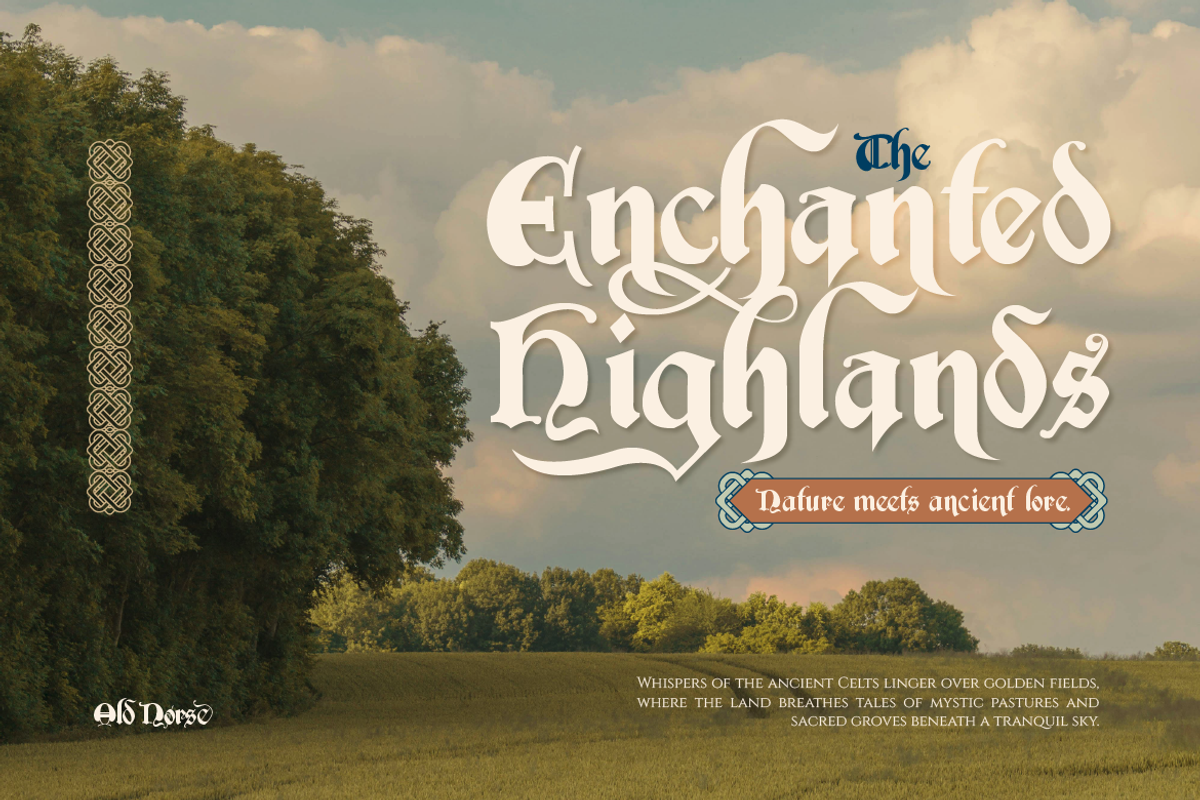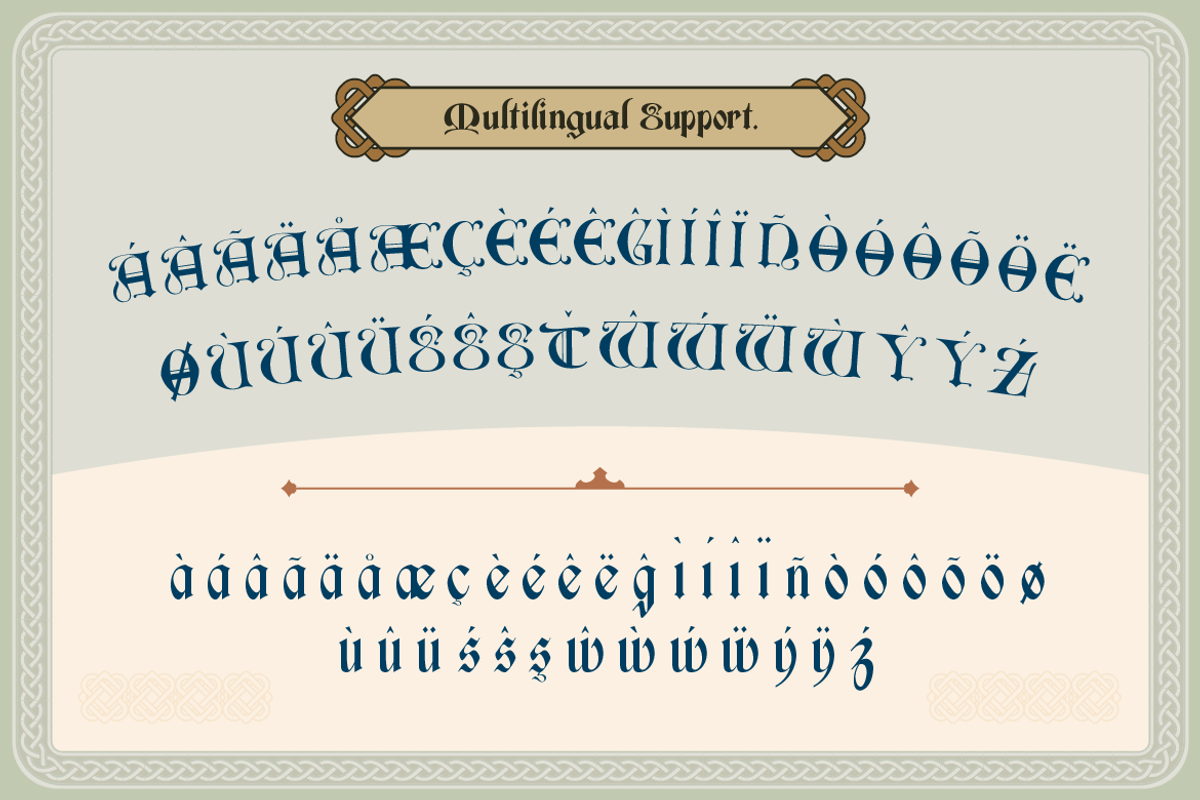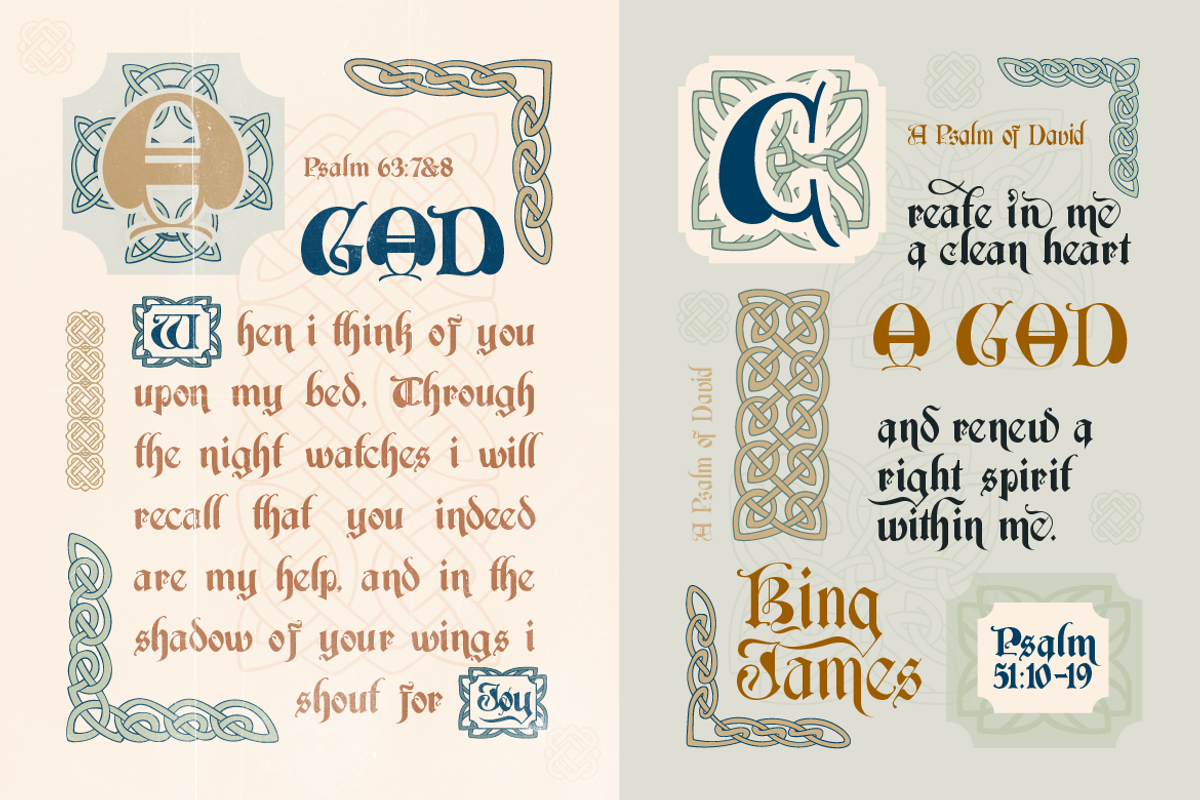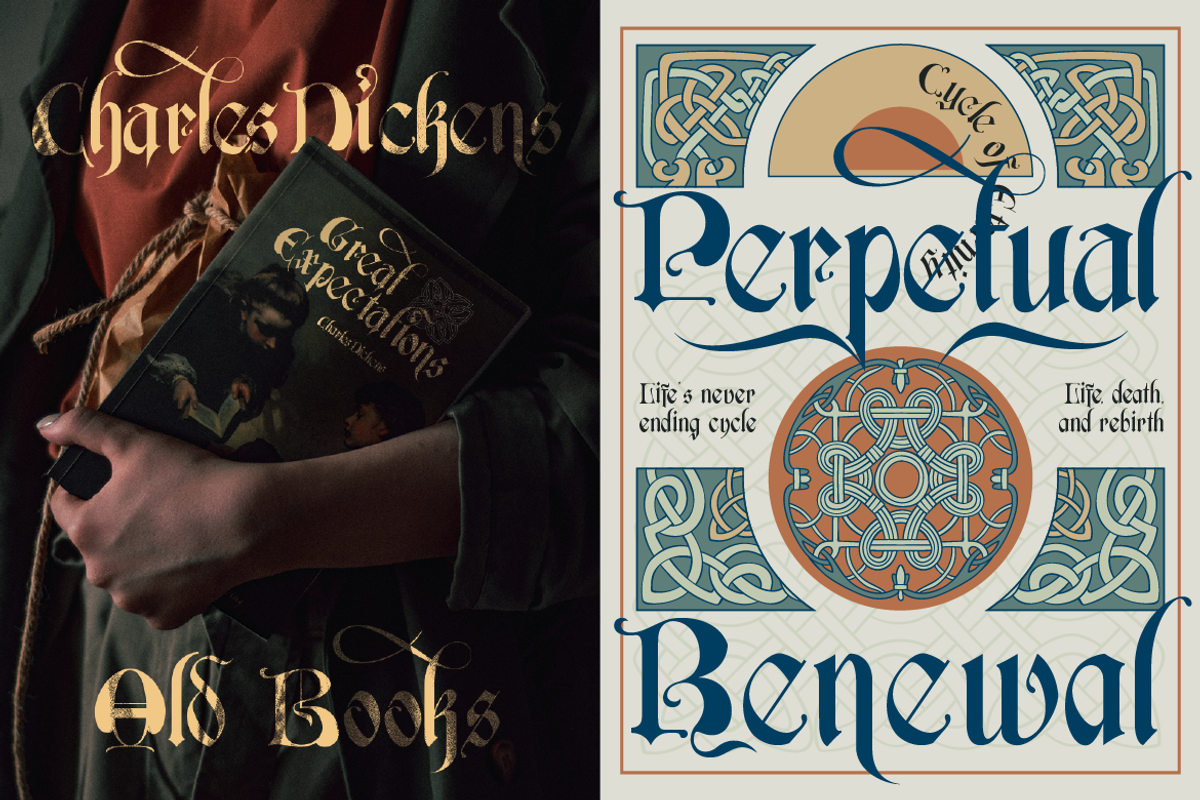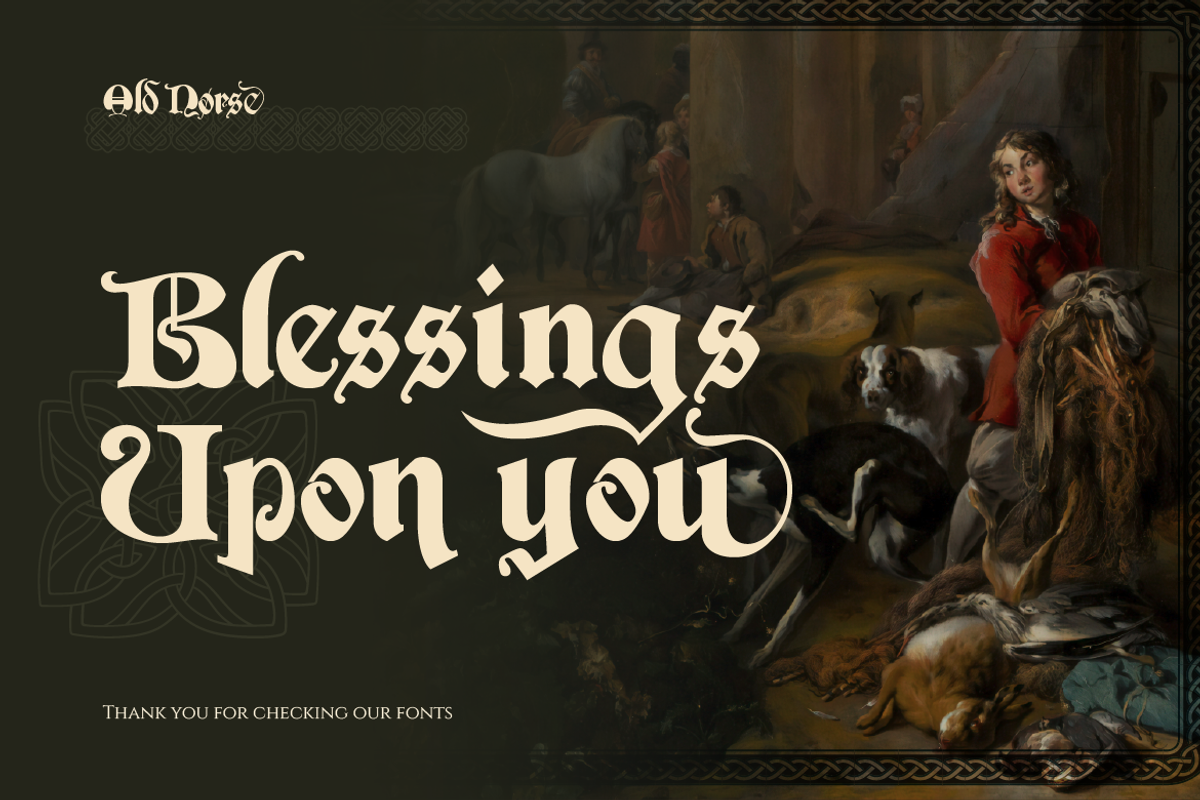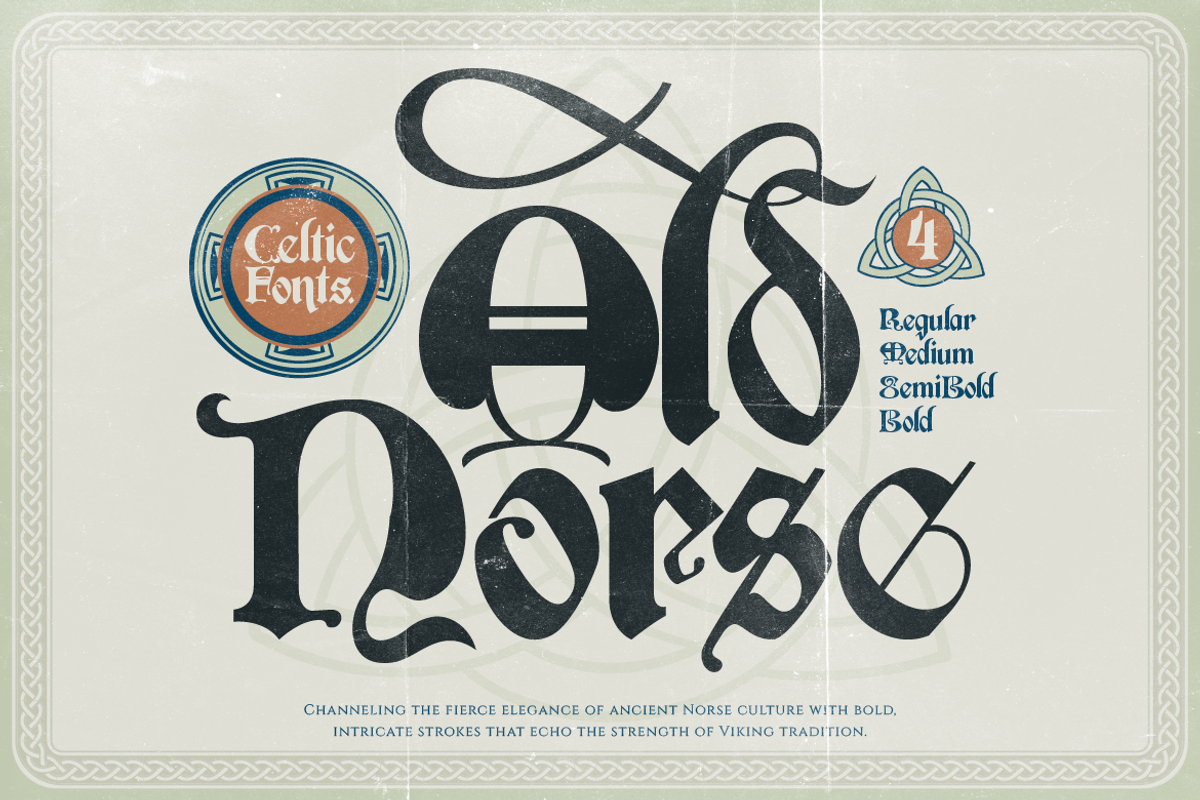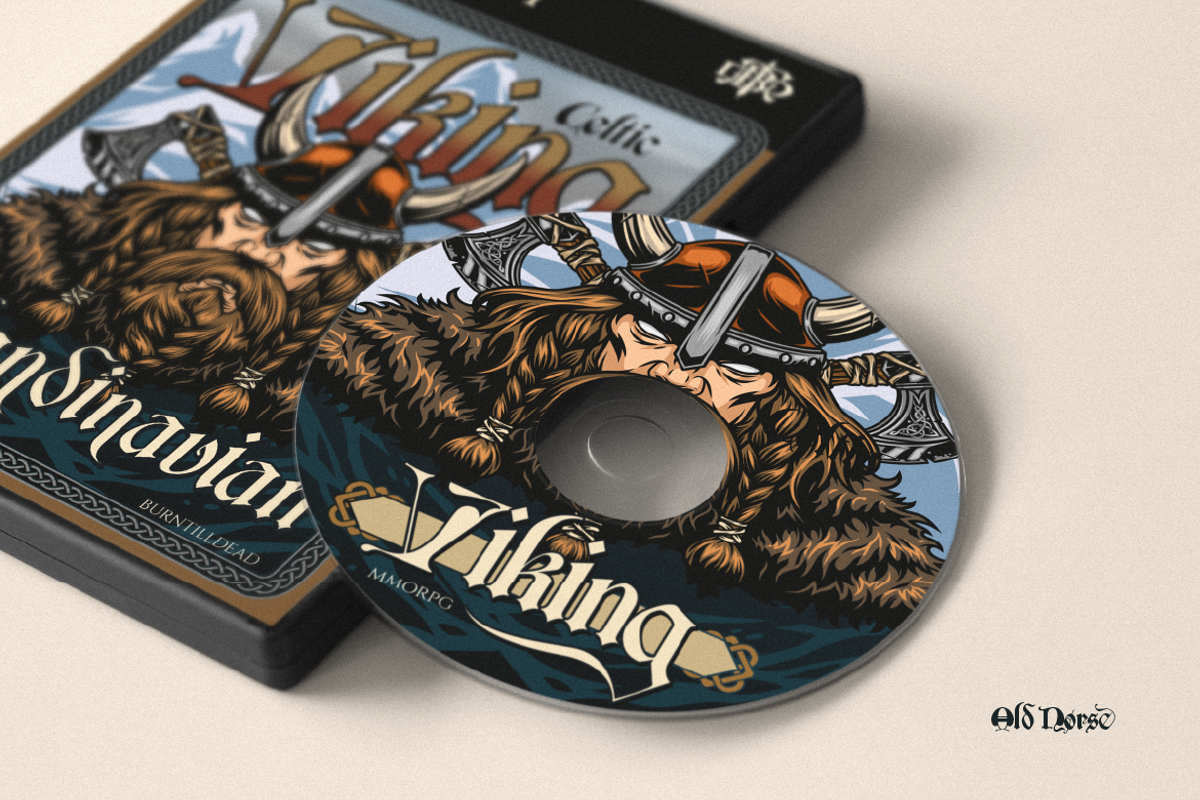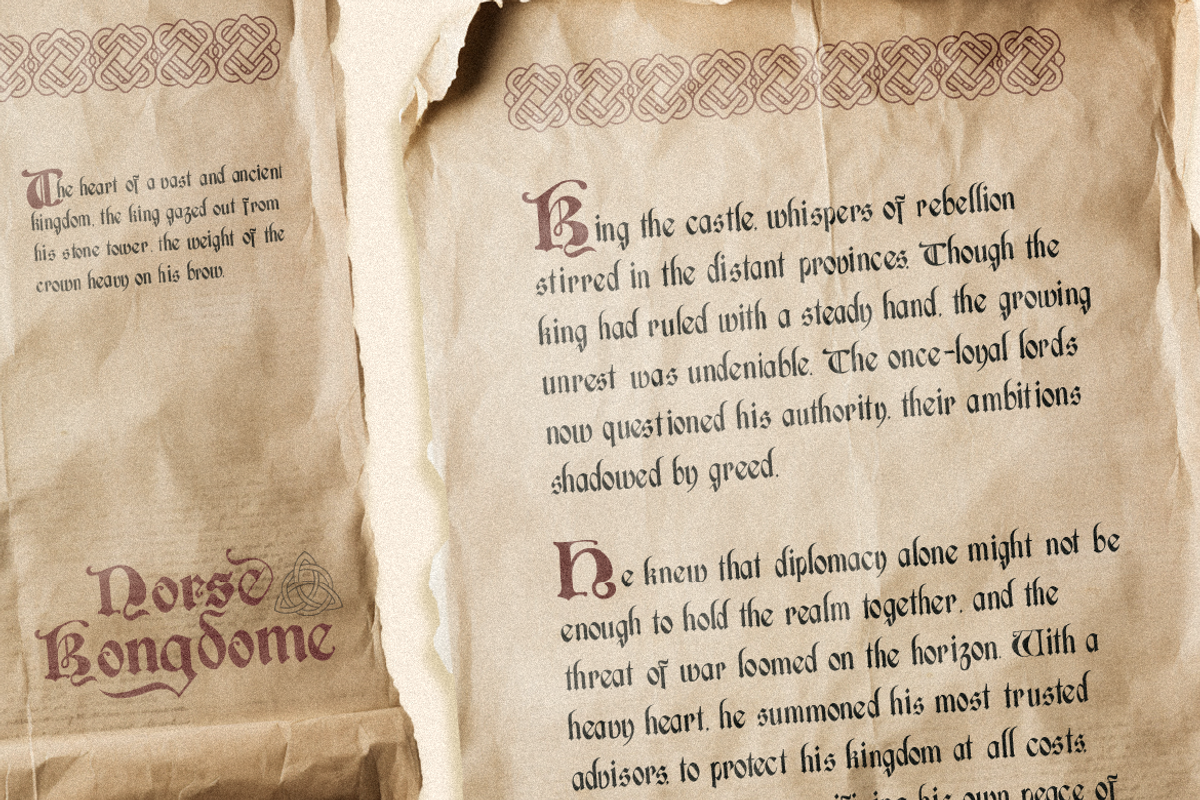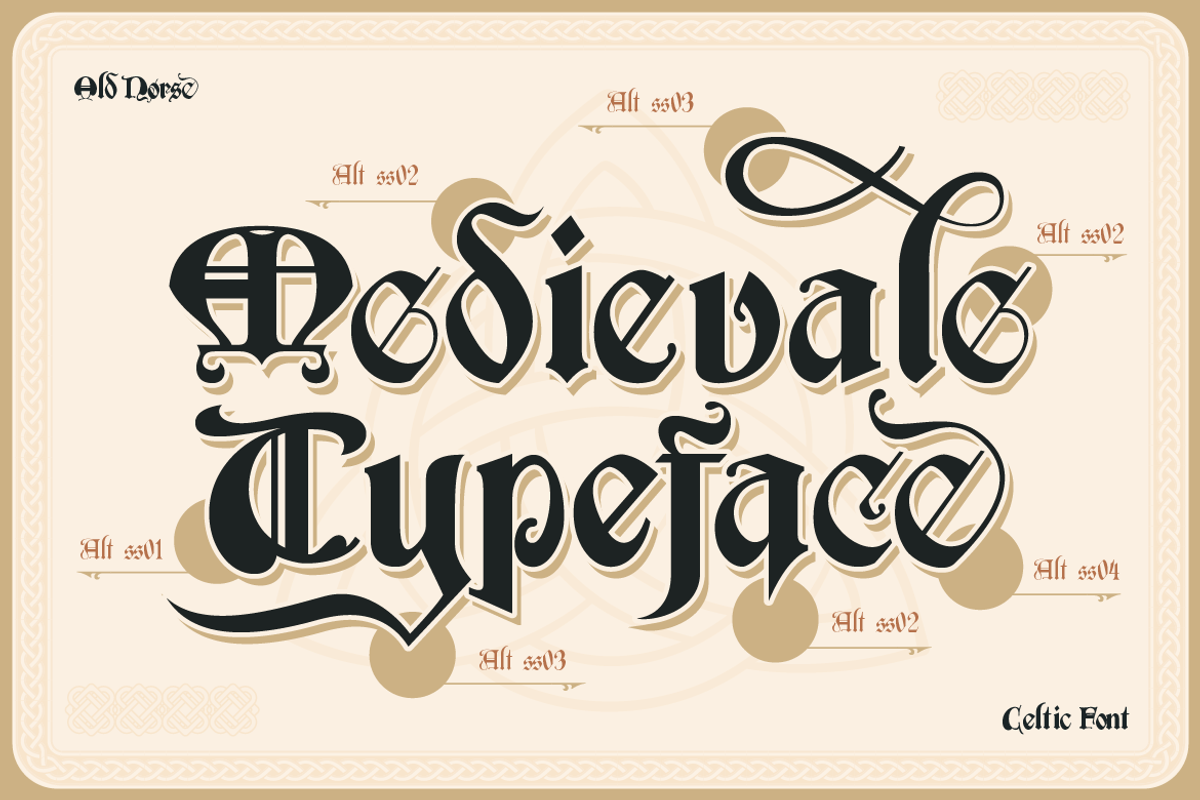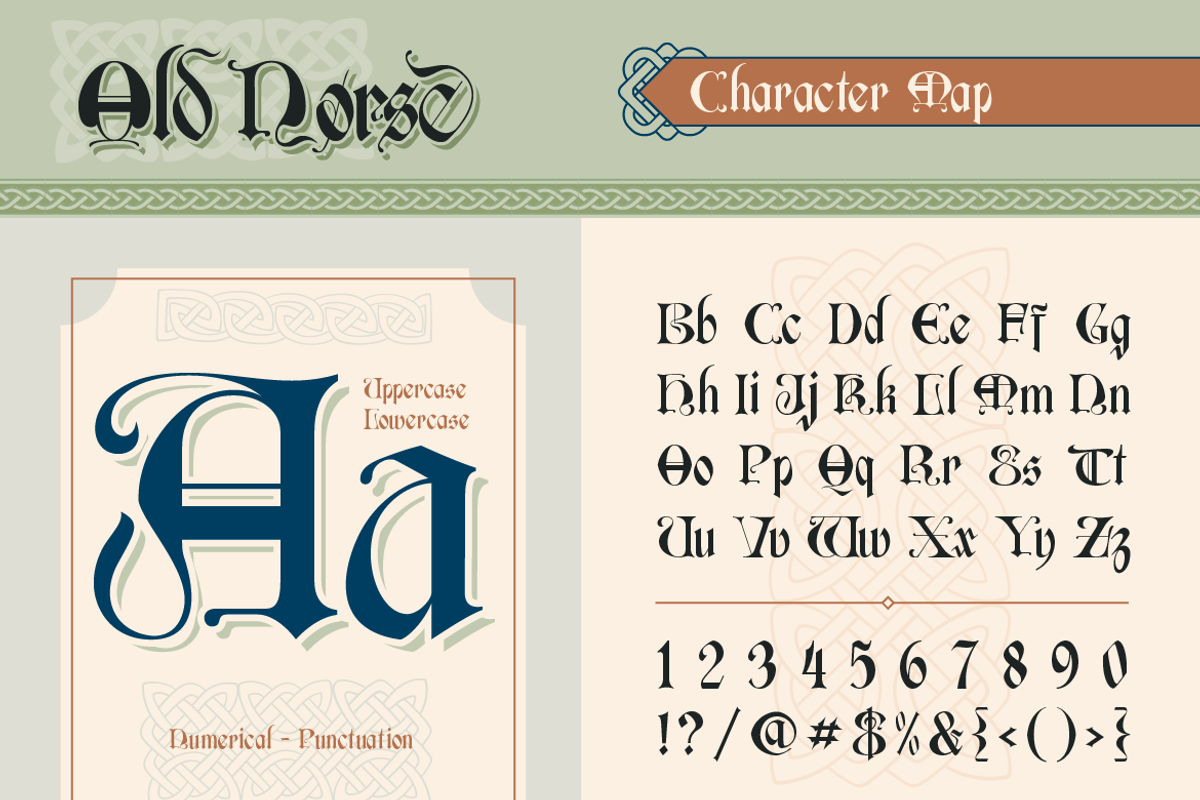
Old Norse
Proudly present, Old Norse, inspired by the ancient letters and artistic traditions of the Celtic people. A medieval aesthetic that evokes the rich cultural heritage of the Celts. You can use it for design project with touch of mystery and history like fantasy novel cover, historical event poster, headlines or titles, decorative text, logo, invitations, magazine, game, t-shirt and anything you can think of it.
- A - Z set (Uppercase & Lowercase)